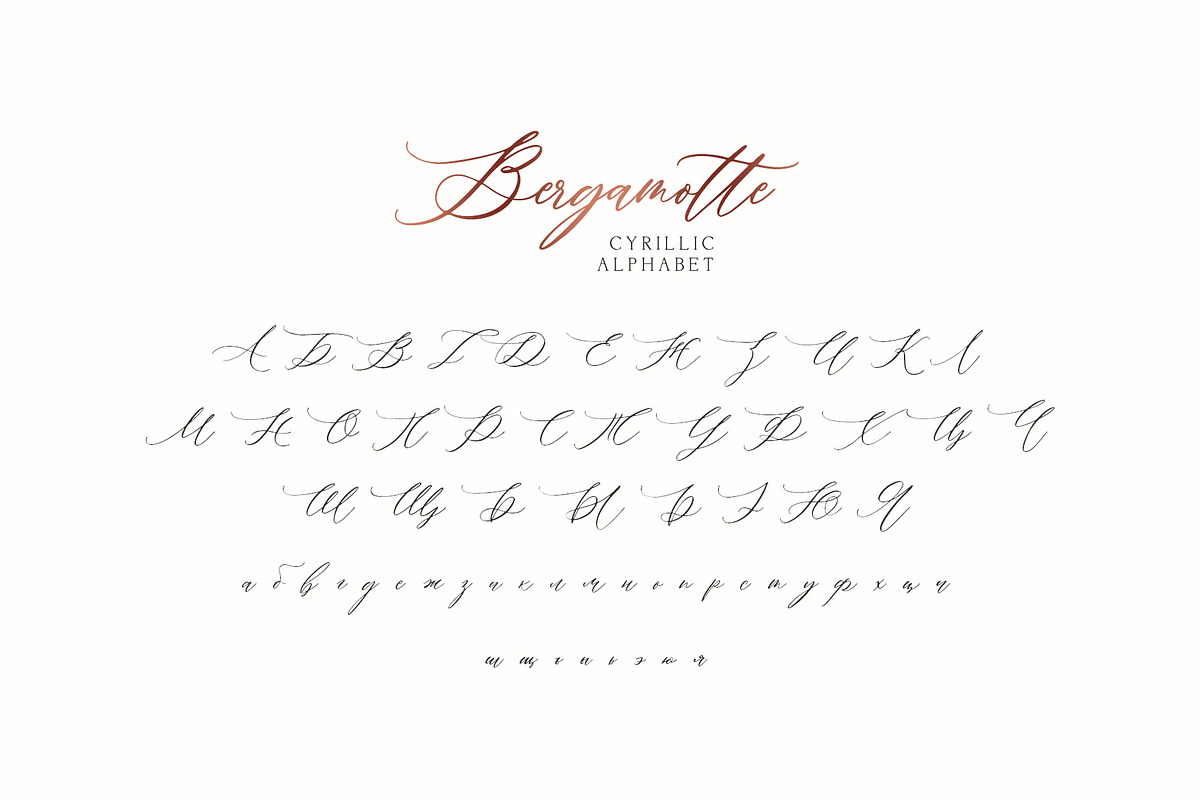
Bergamotte Fine Art Calligraphy
Bergamotte it is a modern calligraphic font with exquisite accents. It is perfect for branding, wedding invitations and invitation cards and many more
Font includes a full set of gorgeous uppercase and lowercase letters, numbers, a large selection of punctuation marks and ligatures, and Cyrillic support
Regular Script
Latin languages support
Cyrillic languages support
Uppercase and lowercase
Numbers and punctuation